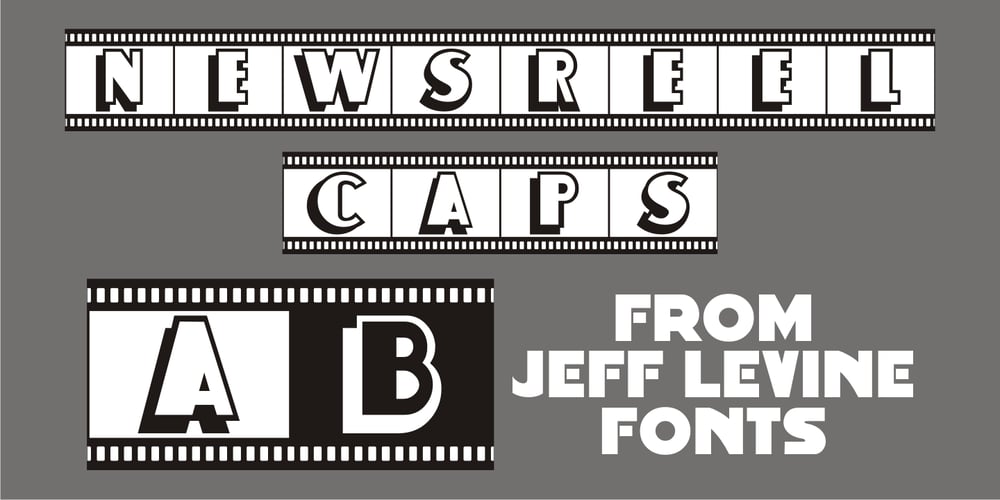
Newsreel Caps JNL Font Family was designed by Jeff Levine and published by Jeff Levine. Newsreel Caps JNL contains 1 styles and family package options. Newsreel Caps JNL is a novelty caps-only outline letter with cast shadow set inside film frames. Although the design idea itself is not new, this version is based on lettering from a vintage piece of sheet music for a song featured in the movie “Fox Movietone Follies”. The font is a wink and nod to Fox’s long-running newsreel series called “Fox Movietone News”. The upper case keys have black letters on a white frame, while the lower case keys have white letters on a black frame. A blank white frame is on the period key; a blank black frame is on the comma key. Use this font for individual initials, set the characters loose for effect or set them tight (as provided) for a continuous film strip.